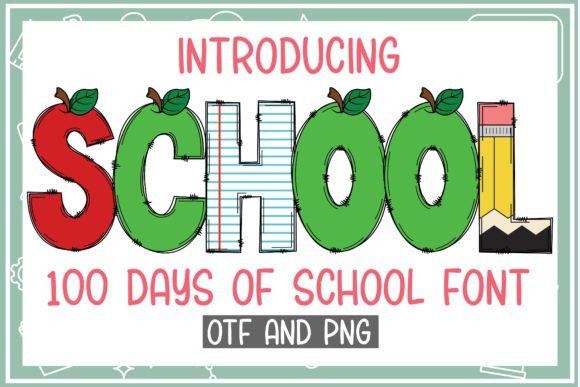
Welcome to the world of School Font, the colorful and playful font family created by MDF. If you are looking to add a fun and authentic touch to your designs, this font is perfect for you. With its chunky lettering and cheerful vibe, School Font is sure to make any project pop.
School Font is a font that embodies the spirit of playfulness and creativity. Its fun and bouncy lettering will transport you back to your childhood and bring a smile to your face. This font is the perfect choice for any children’s activity or school project, making it a great addition to your design toolbox.
But don't be fooled by its playful appearance, School Font is also a versatile font that can be used for a variety of projects. Whether you are designing a poster, brochure, or website, this font will elevate your design and make it stand out from the rest.
One of the best things about School Font is its ability to add a touch of authenticity to your designs. With its chunky and imperfect lettering, this font creates a sense of handmade charm that is sure to impress. Use it to create a unique and memorable design that your audience will love.
In conclusion, if you are looking for a font that embodies playfulness, authenticity, and versatility, look no further than School Font. This colorful and fun font family is sure to add a touch of magic to any design project you undertake. Download it today and see for yourself how it can make your designs come alive.